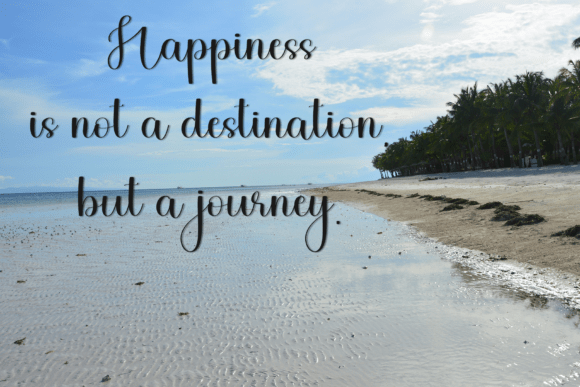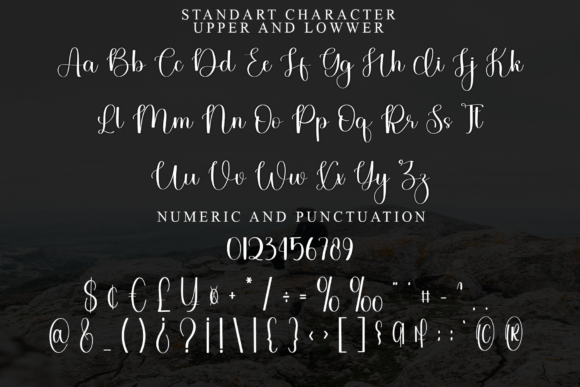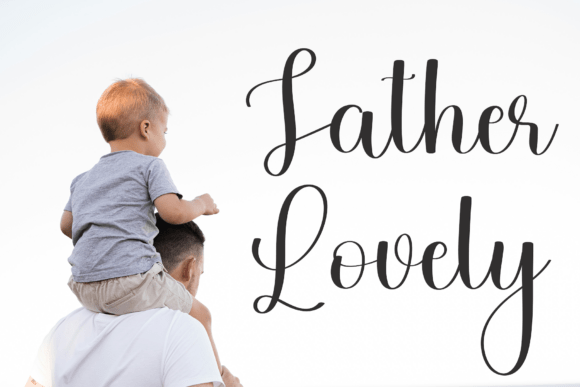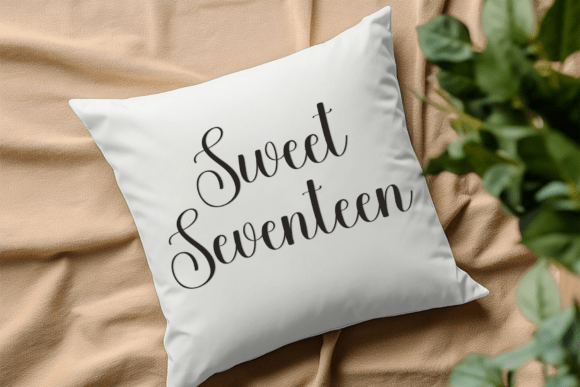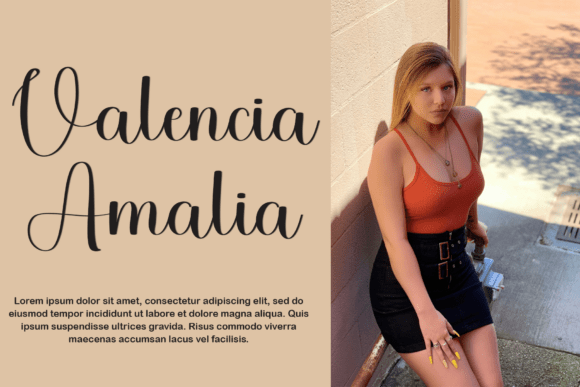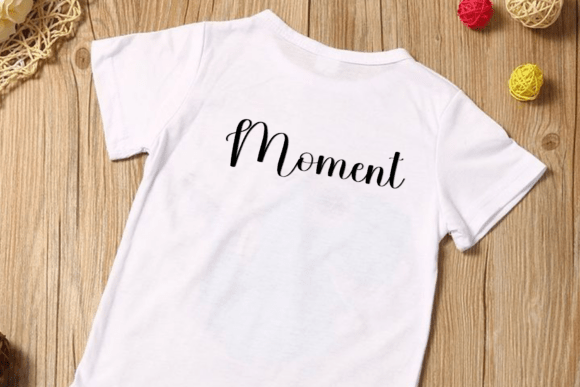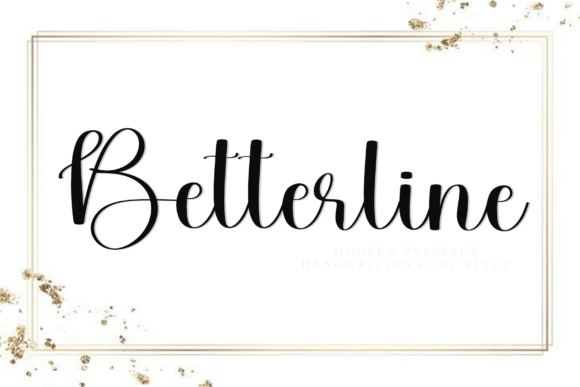
Betterline Font: Adding a Touch of Holiday Magic to Your Designs
The holiday season is upon us, and with it comes the desire to create festive and merry designs that capture the spirit of the season. One of the most effective ways to do this is by using a font that embodies the whimsy and enchantment of the holidays. This is where Betterline Font comes in – a decorative typeface that is sure to add a touch of magic to your designs.
What is Betterline Font?
Betterline Font is a festive and merry typeface that is specifically designed to capture the spirit of the holiday season. With its decorative elements and whimsical flair, it adds a touch of enchantment to your designs. This font is perfect for greeting cards, gift tags, and holiday-themed projects, bringing a cheerful and nostalgic ambiance to your words.
Key Features of Betterline Font
- Decorative Elements: Betterline Font features decorative elements that are reminiscent of the holiday season. From snowflakes to holly leaves, these elements add a touch of festivity to your designs.
- Whimsical Flair: This font has a whimsical flair that is sure to capture the imagination of your audience. Its playful and curly lines evoke a sense of nostalgia and cheerfulness.
- PUA Encoded: Betterline Font is PUA encoded, which means you can access all of the amazing glyphs and ligatures with ease. This makes it easy to use and incorporate into your designs.
Uses of Betterline Font
Betterline Font is a versatile typeface that can be used in a variety of ways. Here are some of the most popular uses of this font:
- Greeting Cards: Add a touch of festivity to your holiday greeting cards with Betterline Font. Its decorative elements and whimsical flair make it perfect for Christmas cards, Hanukkah cards, and other holiday greetings.
- Gift Tags: Make your gift tags stand out with Betterline Font. Its playful and curly lines add a touch of personality to your gifts.
- Holiday-Themed Projects: Whether you’re working on a holiday-themed website, social media post, or marketing campaign, Betterline Font is the perfect choice. Its festive and merry vibe is sure to capture the spirit of the season.
Benefits of Using Betterline Font
There are many benefits to using Betterline Font in your designs. Here are a few:
- Unique and Festive: Betterline Font is a unique and festive typeface that is sure to stand out in a crowded design landscape.
- Easy to Use: With its PUA encoding, Betterline Font is easy to use and incorporate into your designs.
- Versatile: This font can be used in a variety of ways, from greeting cards to holiday-themed projects.
Tips for Using Betterline Font
Here are a few tips for using Betterline Font in your designs:
- Use it Sparingly: While Betterline Font is festive and merry, it can be overwhelming if used too much. Use it sparingly to add a touch of magic to your designs.
- Pair it with Other Fonts: Betterline Font pairs well with other fonts, such as serif and sans-serif fonts. Experiment with different pairings to find the one that works best for your design.
- Experiment with Colors: Betterline Font looks great in a variety of colors, from traditional holiday colors like red and green to more modern colors like blue and purple.
Betterline Font is a festive and merry typeface that is sure to add a touch of magic to your designs. With its decorative elements and whimsical flair, it’s perfect for greeting cards, gift tags, and holiday-themed projects. Its PUA encoding makes it easy to use, and its versatility makes it a great choice for a variety of design projects. So why not give Betterline Font a try and see how it can add a touch of enchantment to your words?